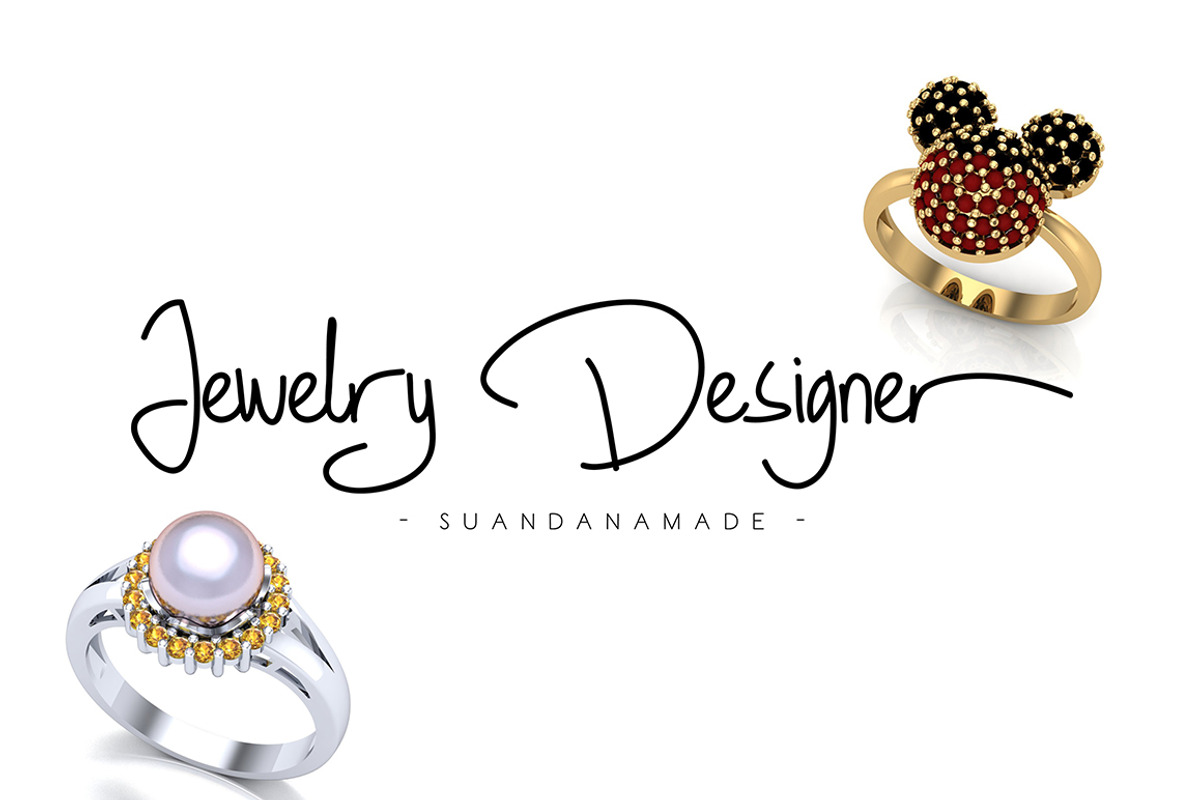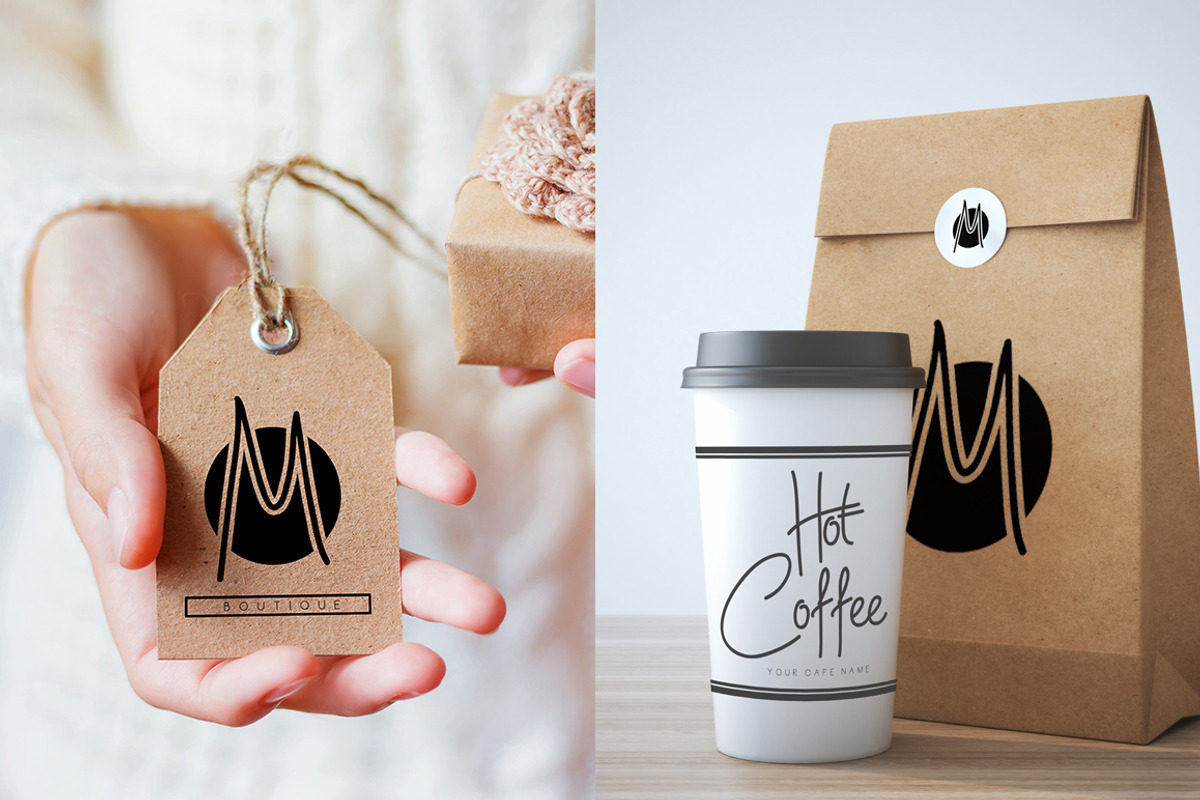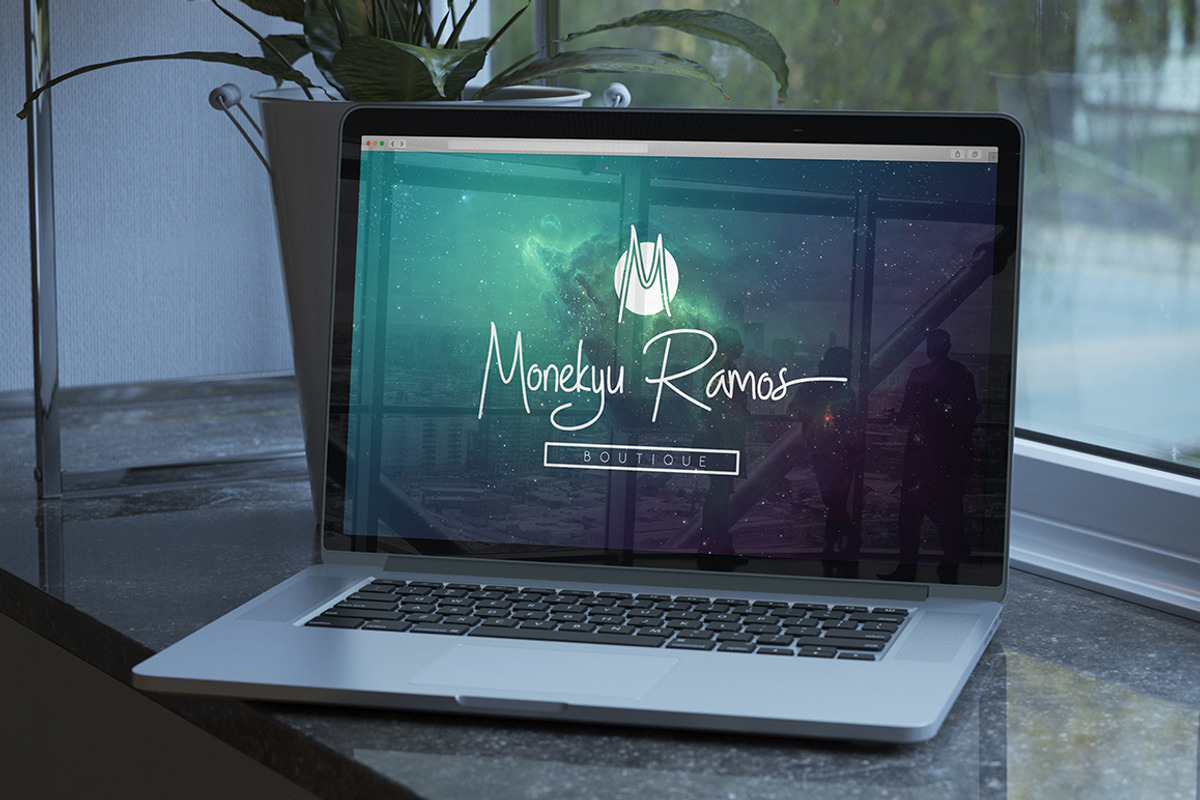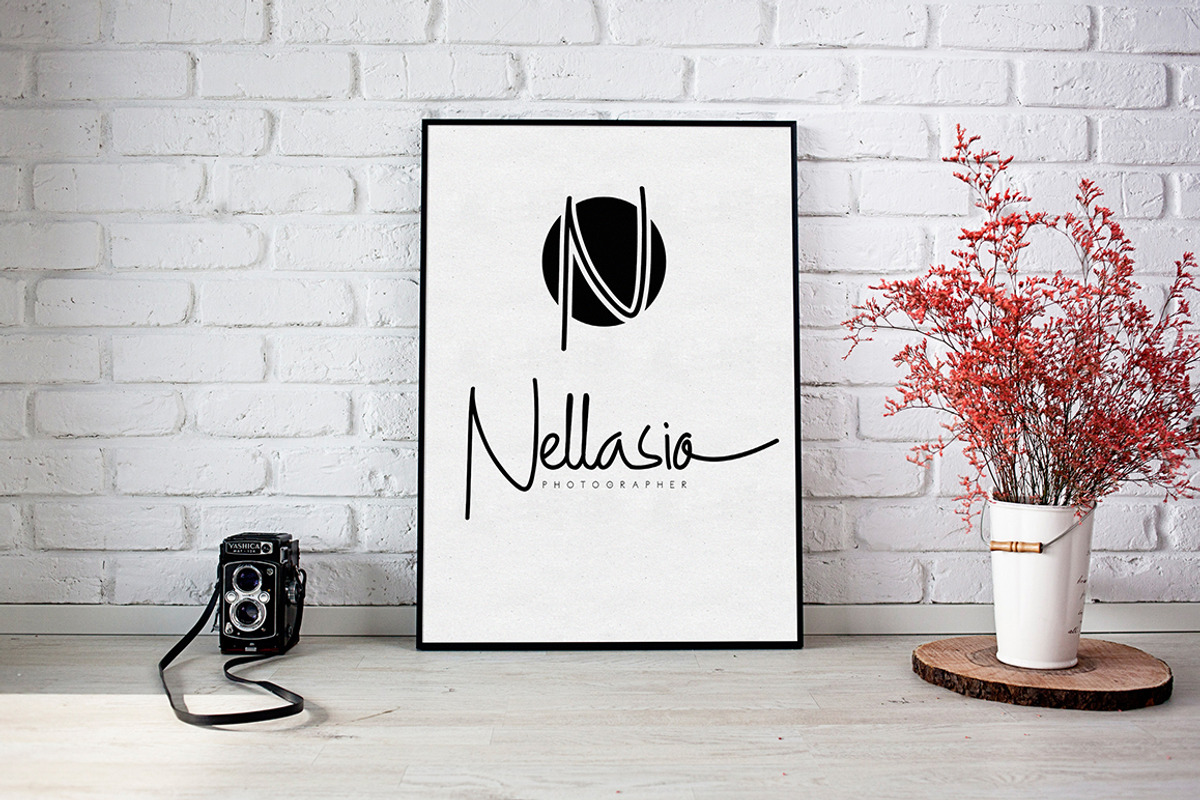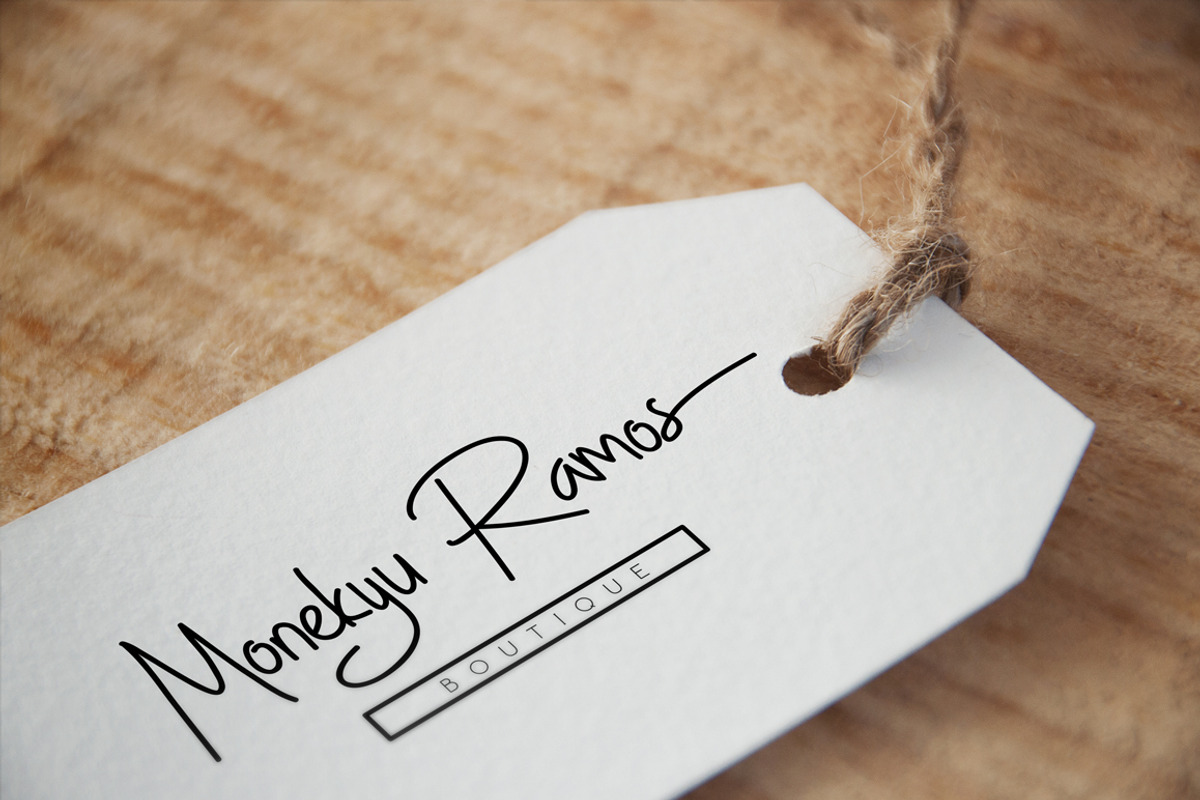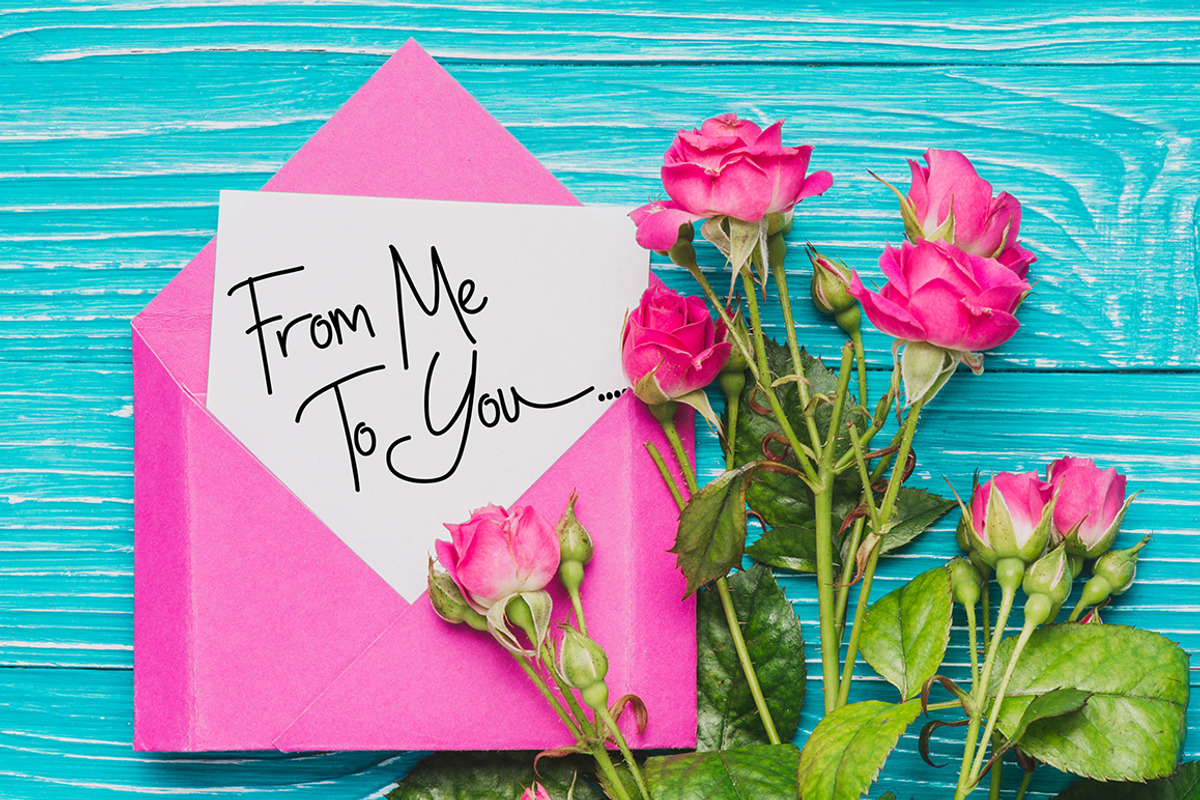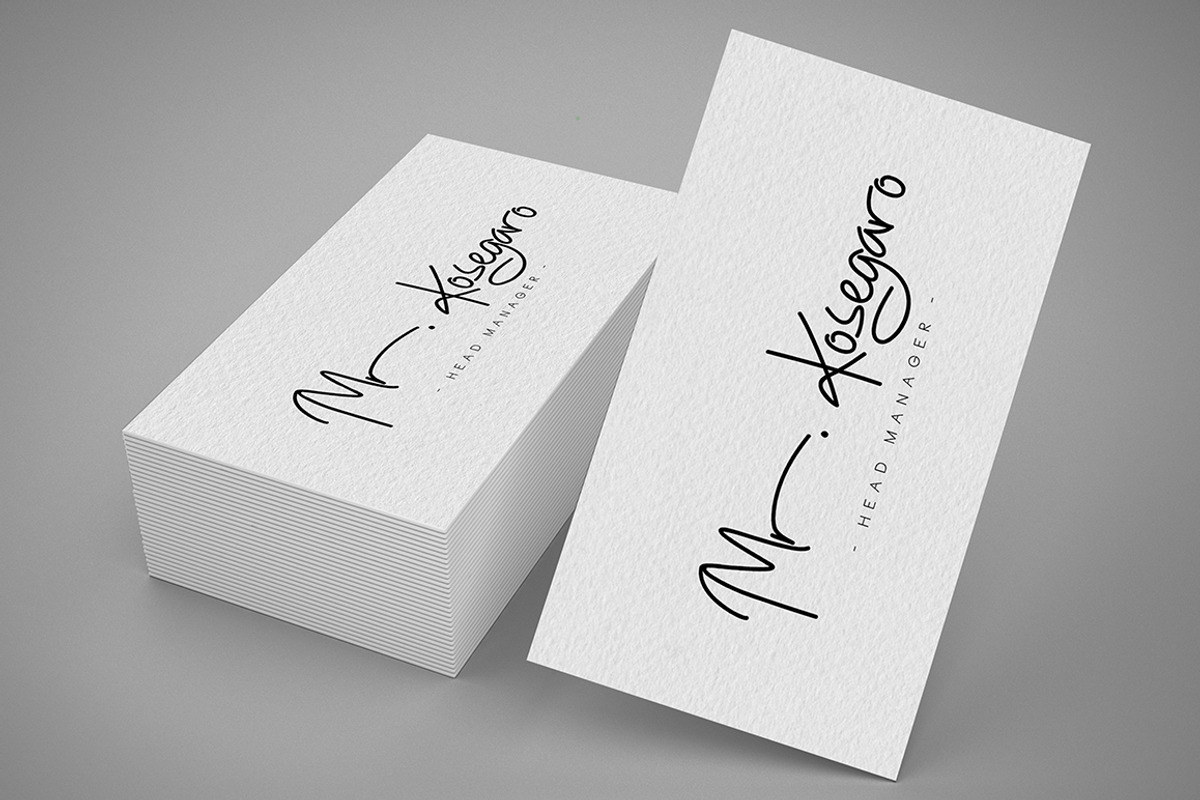
Geovana Signature Typeface
Hello I'm really excited to introduce Geovana Signature Typeface is a Signature typeface font inspired from classic handwriting style. Suitable to create any branding, product packaging, invitation, quotes, t-shirt, label poster etc.